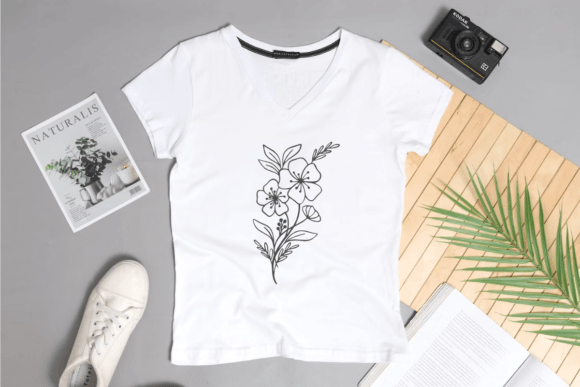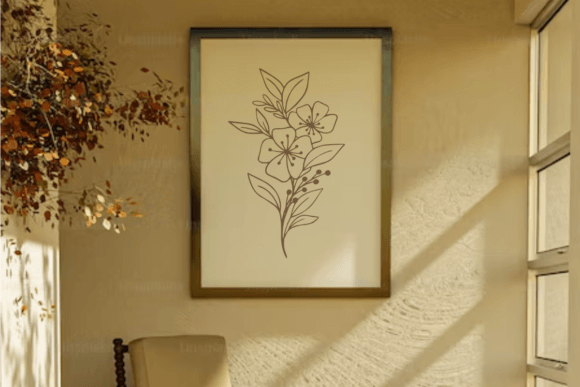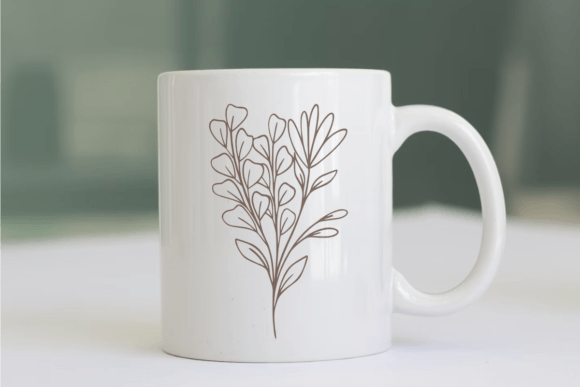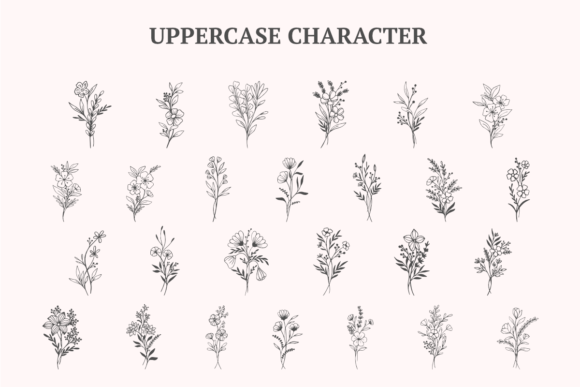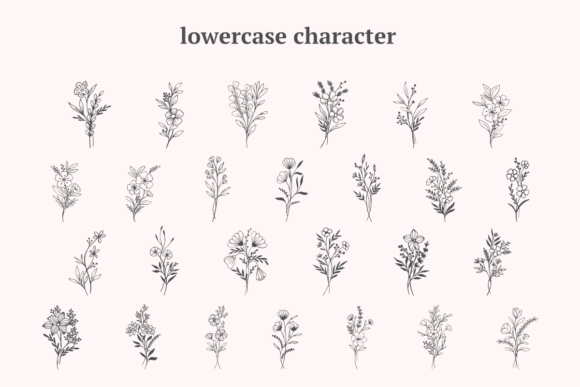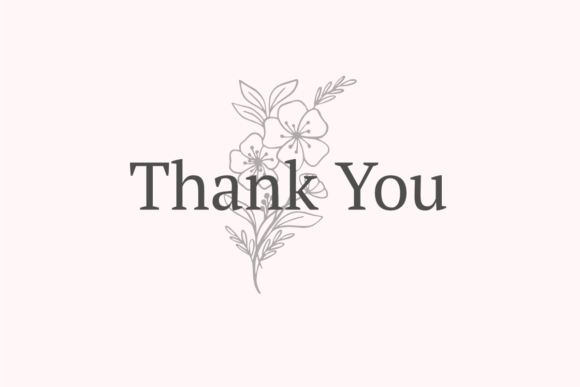
The Wildflower Wonder: Unpacking the Bunga Liar Font
I’ll never forget the design project that led me to discover the Bunga Liar Font. I was working on a branding campaign for a local botanical garden, and I needed a font that could capture the whimsical, natural essence of their brand. After hours of scouring font libraries and marketplaces, I stumbled upon this hidden gem – a dingbat font filled with beautiful, eye-catching wildflower glyphs. It was love at first sight! 💐
First Impressions: A Review of Bunga Liar Font
• 🌼 The font’s inspiration from native plants gives it a natural and elegant impression, perfect for designs that require a touch of whimsy and sophistication.
• 🎨 The wildflower glyphs are intricately designed, making them suitable for a wide range of creative projects, from craft needs to digital designs.
• 💕 The font’s aesthetic is perfect for wedding designs, t-shirt prints, and other creative projects that require a touch of elegance and playfulness.
While Bunga Liar Font is an excellent choice for many design projects, there are a few things to keep in mind:
• 🤔 The font’s dingbat nature means it’s primarily composed of glyphs, which might limit its use in projects requiring extensive body text.
• ⚠️ Some users may find the font’s stylistic alternates and OpenType features require a bit of experimentation to master.
The Story Behind Bunga Liar Font
The Bunga Liar Font was inspired by the beauty and diversity of wildflowers found in nature. The designer aimed to capture the essence of these delicate plants and translate them into a unique, eye-catching font. By combining elegant lines, intricate details, and a touch of whimsy, Bunga Liar Font was born – a font that’s perfect for designers, crafters, and creative hobbyists looking to add a touch of natural elegance to their projects.